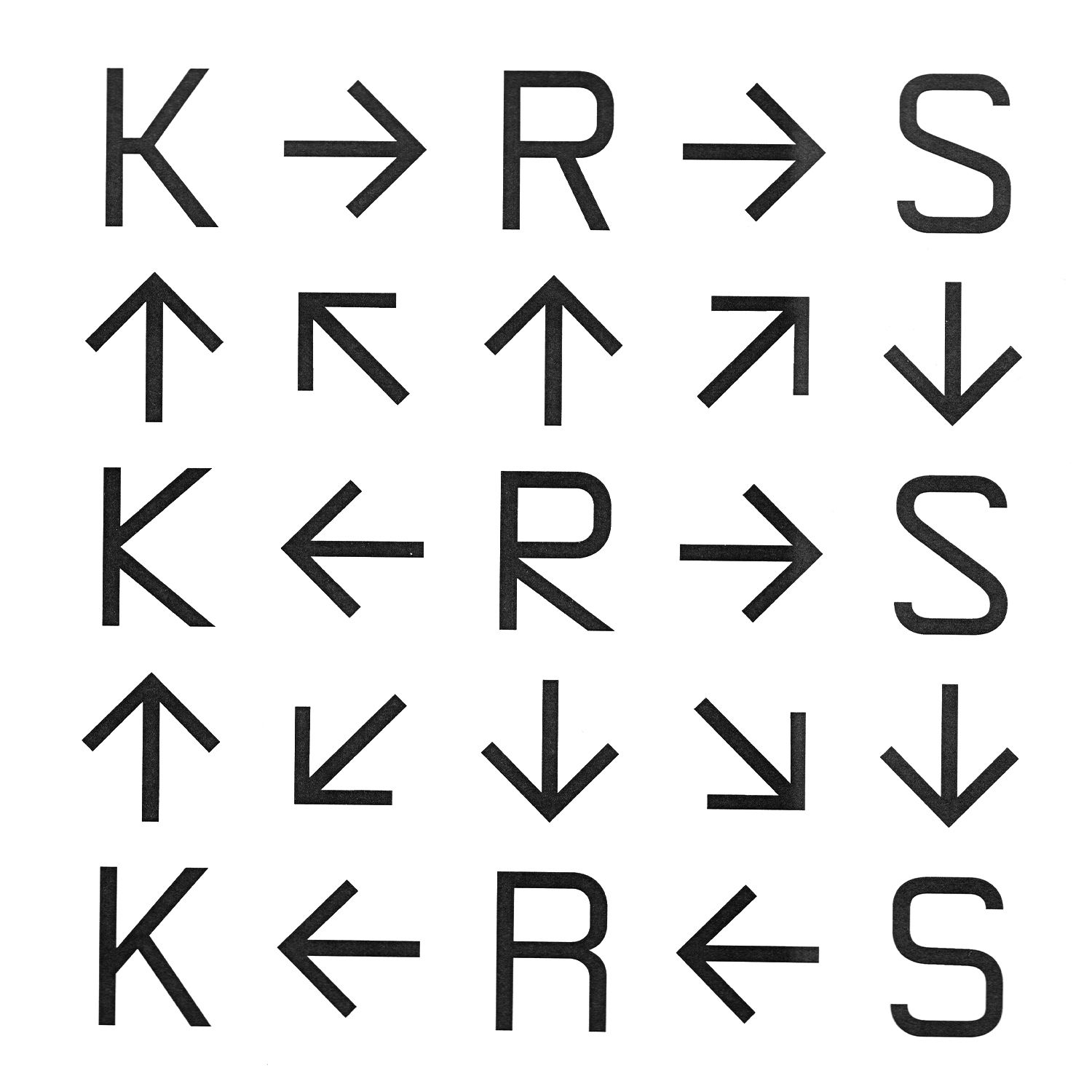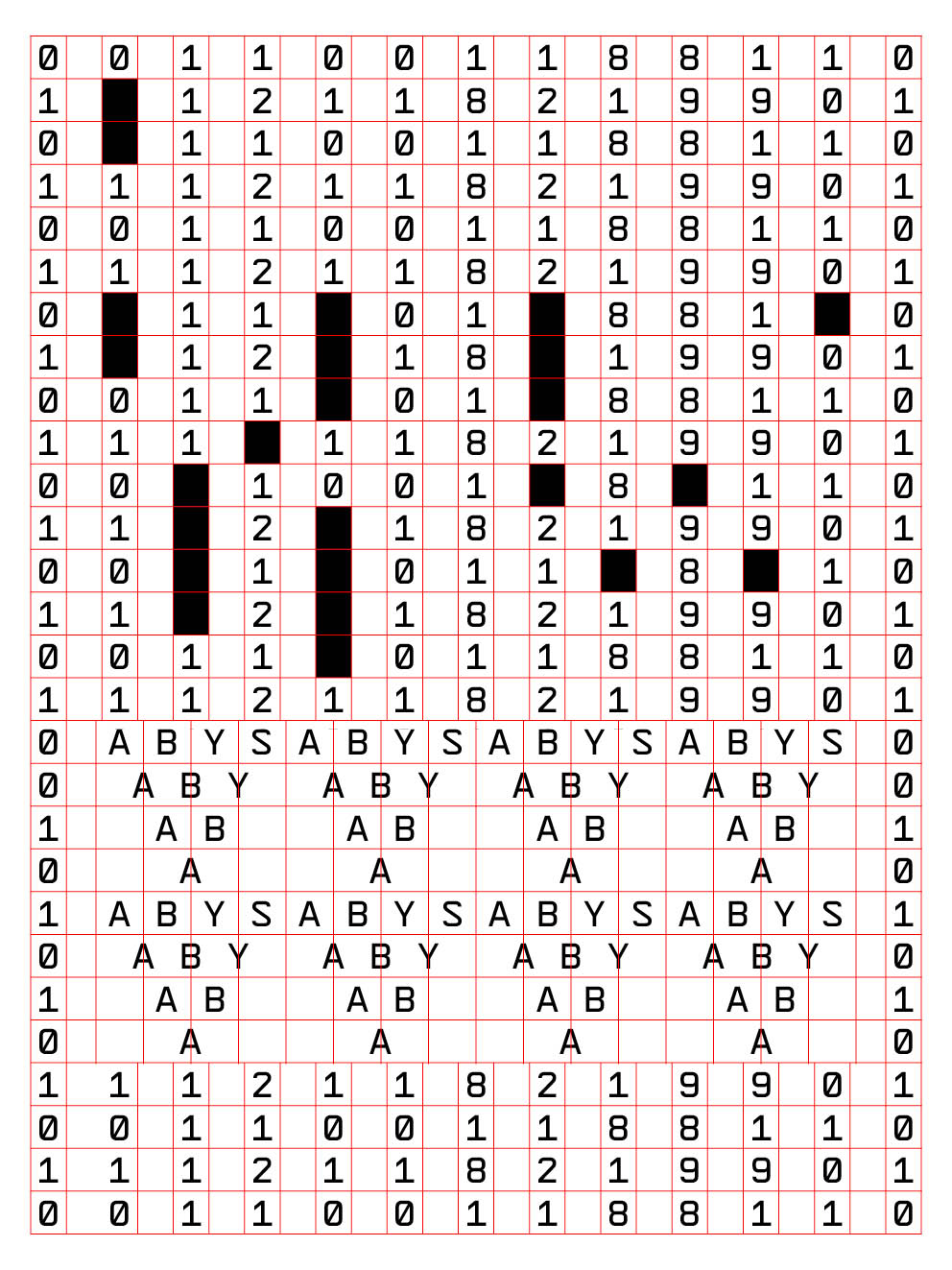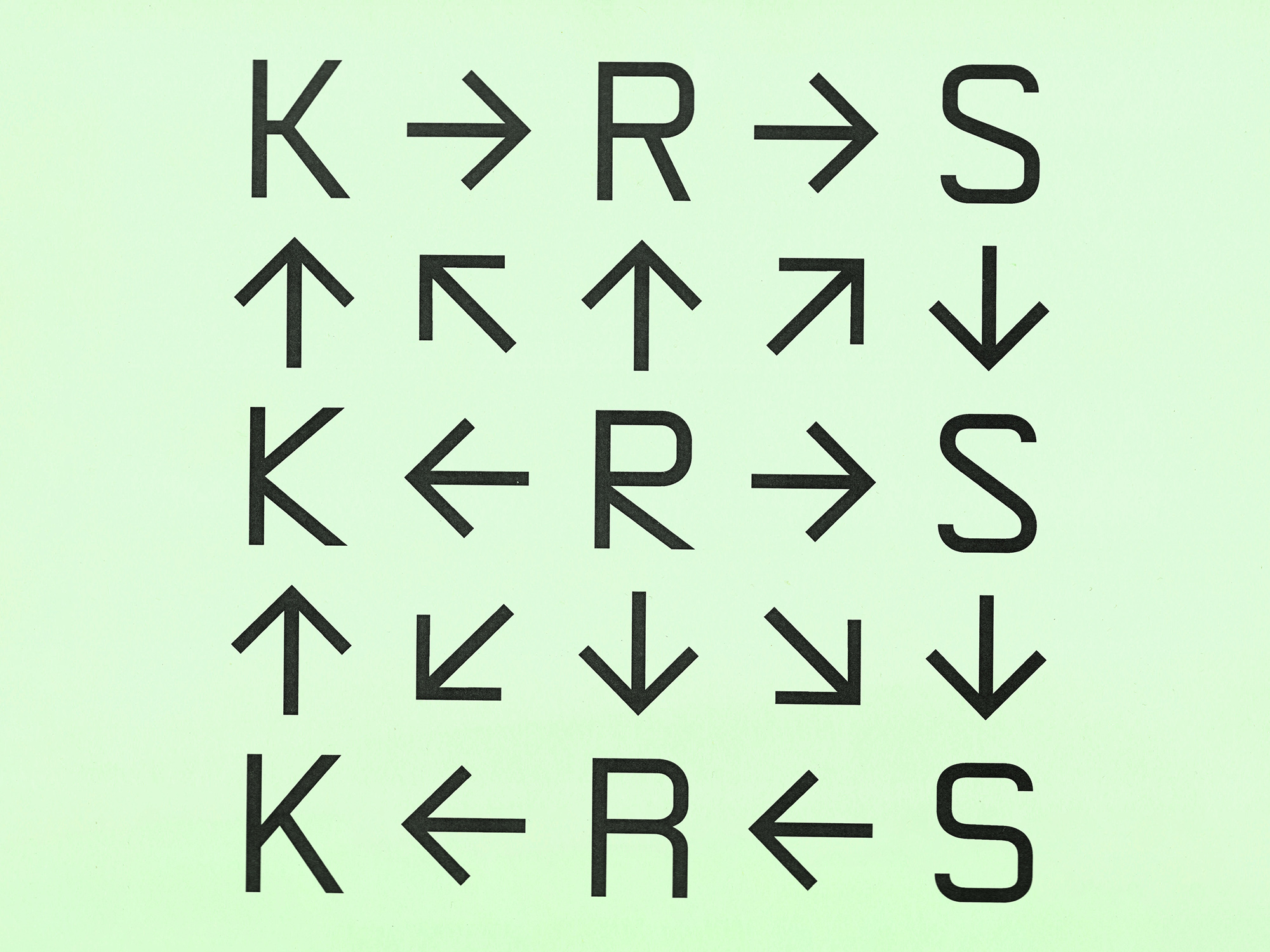
Abys Mono
About Abys Mono
Abys Mono is a contemporary monospaced typeface designed according to an industrial graphic logic, based on linear repetition and calibrated spacing, generating a sober and deliberate form of precision. Its monospaced construction produces a consistent typographic surface: each character occupies the same width, allowing designers to sculpt space, tempo, and alignment with the regularity of a machine. This fixed structure turns letterforms and text into pure graphic material, supporting identities, interfaces, and visual languages that rely on order, pattern, and consistency. Yet, almost paradoxically, it also opens the way to more experimental compositions, echoing the principles of concrete poetry, where meaning emerges from arrangement, density, and textual rhythm.
The family includes over 600 glyphs, seven styles with matching italics, and several stylistic sets, including carved alternates for K, R, and S that reinforce its technical character. Designed as a modular system with a wide weight range, Abys Mono moves with ease from small text sizes, where the lighter cuts maintain excellent readability, to large display applications, where Black delivers a powerful graphic presence.